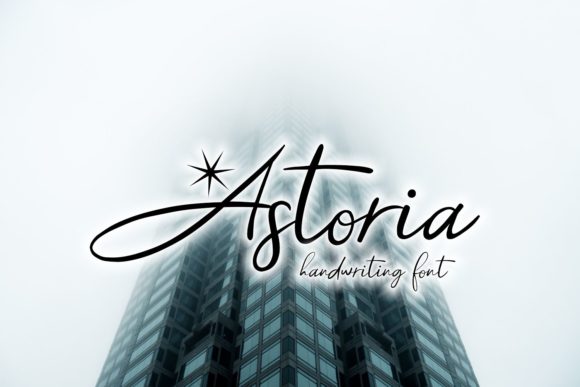
HomeScript FontsAstoria Font Script Fonts Astoria Font FacebookXPinterestWhatsApp Astoria Font Poster 2 About Astoria Font Astoria is a modern and simple handwritten font, full of charm. It will turn any design project into a stand out! DOWNLOAD ON CREATIVE FABRICAThis font is sold and delivered by Creative Fabrica. Font Canyon may earn a commission if you buy through this link. People also explored Yorkside Modern Calligraphy Font Tile Star Font Little Ghost Font Restful Script Romantic Butterfly Font Ornaments Cute Font Pickle Biscuit Font Likes Snow Font High Rise Font 298 0 TagsAstoria Font Previous articleChamilla Kids FontNext articleBoldkids Font LEAVE A REPLY Cancel reply Comment: Please enter your comment! Name:* Please enter your name here Email:* You have entered an incorrect email address! Please enter your email address here Website: Save my name, email, and website in this browser for the next time I comment. Personal Use Free Senza Bella Personal Use Free Read more about this font Remember Personal Use Free Read more about this font Waturaden Personal Use Free Read more about this font Karmatic Arcade Personal Use Free Read more about this font BLOG Elegant Wedding Invitation Fonts – Handwritten & Script Fonts Elegant Wedding Invitation Fonts Your wedding day is one of the most important moments of your life, and every detail matters—including your invitation design. Our... Using Fonts in Digital Marketing: Tips to Strengthen Your Brand Identity Top 7 Google Fonts Alternatives for Faster and Privacy-Friendly Web Design (2025) 5 Fonts That Will Dominate Design Trends in 2026